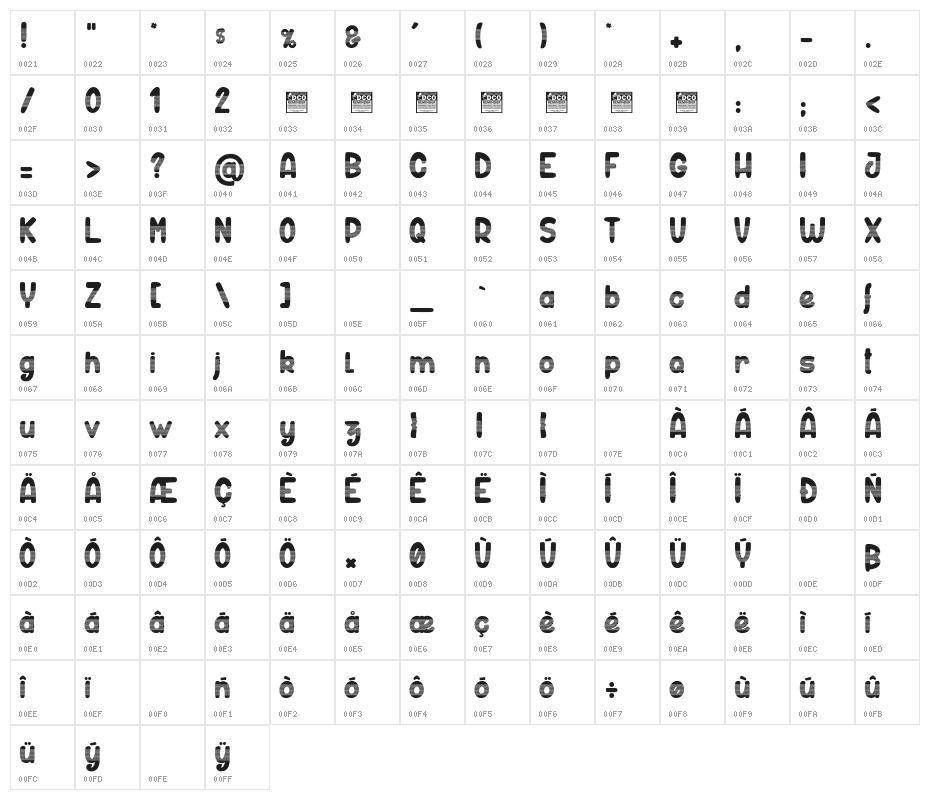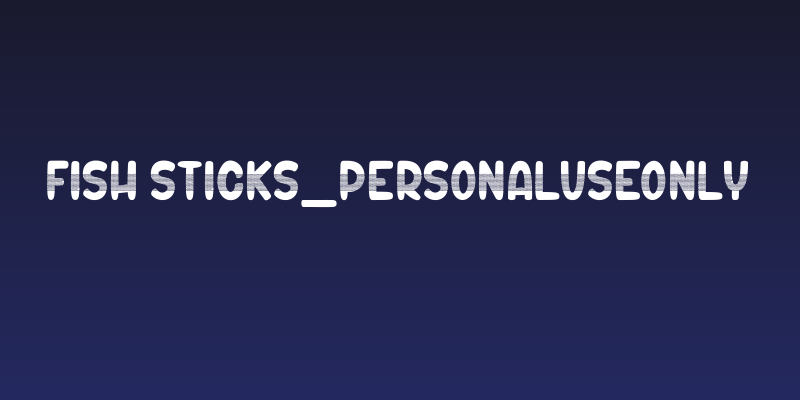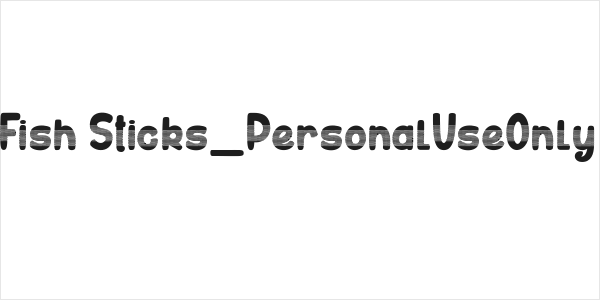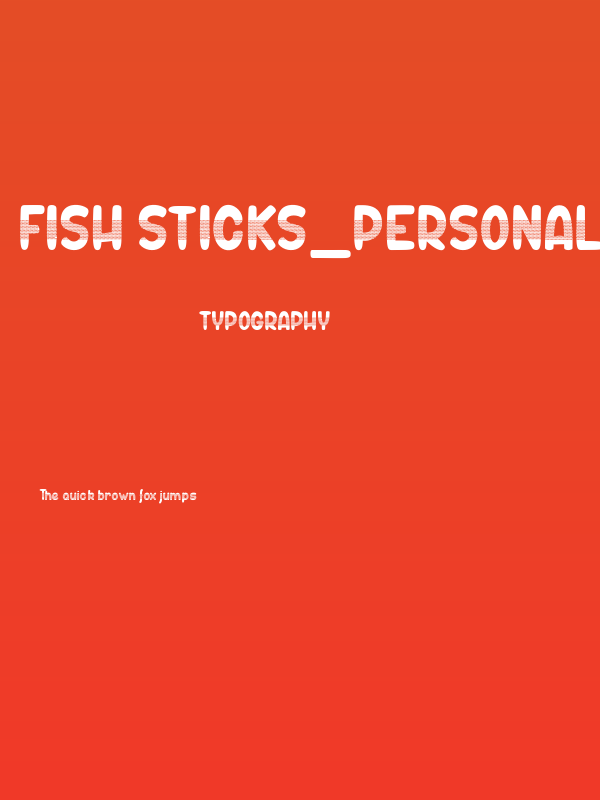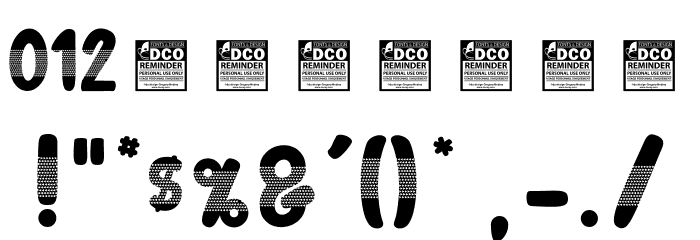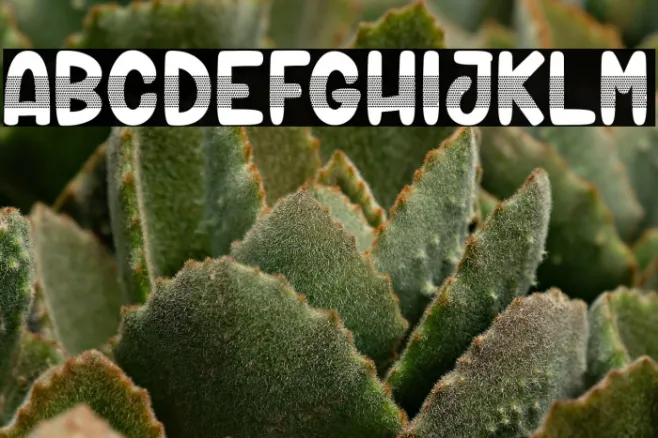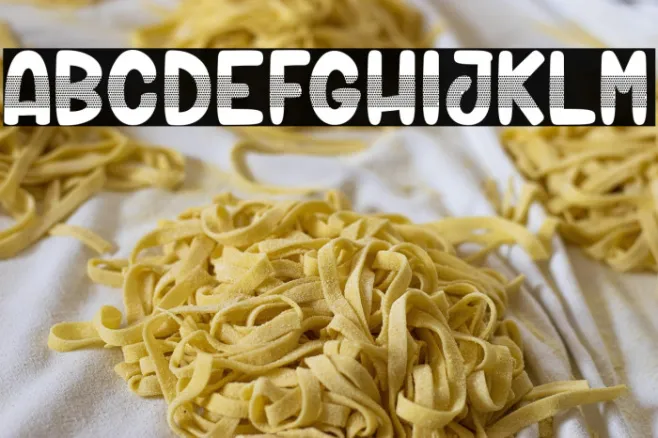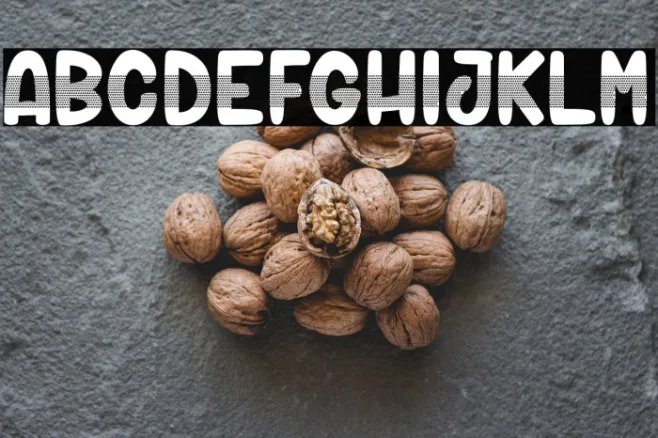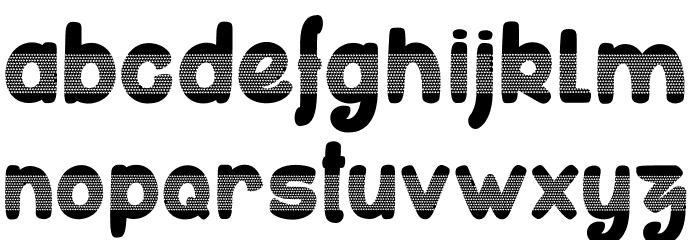
Fish Sticks_PersonalUseOnly Font
Fish Sticks_PersonalUseOnly Description
This font features a playful and bold design with a unique halftone pattern that runs horizontally through each character. The letters are rounded and thick, giving them a friendly and approachable appearance. The uppercase and lowercase letters maintain consistent styling, with a slight variation in size and shape to distinguish them. Numbers and special characters are included, following the same design principles. The overall look is reminiscent of retro comic book styles, making it ideal for projects that require a fun and nostalgic touch.
| Overall Style | Retro, Playful |
| Proposed Projects | Ideal for comic books, children's books, playful branding, and retro-themed designs. |